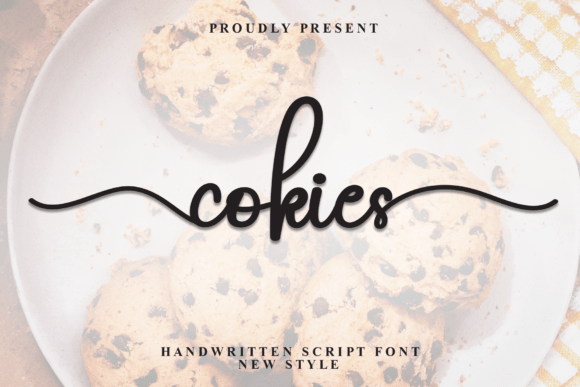
The Magic of Handwritten Fonts: Discovering the Charm of Cokies
Have you ever been working on a design project and suddenly, the perfect font pops into your mind, instantly elevating the entire piece? That’s exactly what happened to me when I stumbled upon Cokies Font. This stylish handwritten script font has a way of adding a personal touch to any design, making it truly unforgettable.
Cookies Font is a masterful blend of modern elegance and playful charm, perfect for logos, packaging, and invitations. Its fluid strokes and charming curves bring a sense of sophistication and warmth to every project. As a designer, I can attest to the value of having a versatile font like Cokies in your toolkit. Whether you’re looking to create a whimsical brand identity or a stunning event invitation, Cokies Font is sure to inspire your creativity.
Cookies Font Key Features
- Size: The font family includes multiple weights, from Extra Light to Black, offering a total of 12 styles to suit various design needs.
- Unique Characteristics: The font features a distinctive, hand-drawn style with subtle texture and imperfections, giving it a warm and inviting feel.
Cookies Font Review
I recently had the chance to work with the Cookies Font, and I must say it’s been an interesting experience. Here’s what I think:
- Cookies Font has a unique, playful feel that’s perfect for casual designs or food-related projects.
- The font is highly customizable, with a wide range of weights and styles to choose from.
- It’s easy to read, even in smaller sizes, making it a great choice for body text or headings.
- The font’s quirks can be overwhelming for more formal or professional designs.
- The numerous weights and styles can be difficult to navigate, especially for beginners.
- The font may not be the best choice for projects that require a high level of sophistication or elegance.
Overall, I’d say the Cookies Font is a fun and playful addition to any designer’s toolkit. While it may not be suitable for every project, it’s a great choice for those looking to add a bit of whimsy or personality to their designs.
Tips for Getting the Most Out of Cookies Font
Use Cookies Font to add a playful touch to your designs. Experiment with different font sizes, colors, and combinations to create unique and eye-catching effects.
Cookies Font is perfect for:
- Bakery or food-related designs
- Playful branding or marketing materials
- Wedding or party invitations
Alternatives to Cokies Font for Designers
Great Vibes Font is a beautiful, handwritten font perfect for creating eye-catching titles and headings. It’s ideal for use in branding materials, posters, and social media graphics. Great Vibes Font has a more elegant and refined feel compared to Cokies Font, which is bolder and more playful.
Pacifico Font is a stylish, cursive script font ideal for use in luxury branding, invitations, and packaging design. It’s a more sophisticated alternative to Cokies Font, which is better suited for casual, fun designs. Pacifico Font has a more refined and elegant feel, making it perfect for high-end projects.
Lobster Font is a fun, cursive script font perfect for use in creative projects, such as posters, flyers, and social media graphics. It’s a great alternative to Cokies Font for designers who want to add a touch of whimsy and playfulness to their designs. Lobster Font is more relaxed and casual compared to Cokies Font, which is bolder and more attention-grabbing.